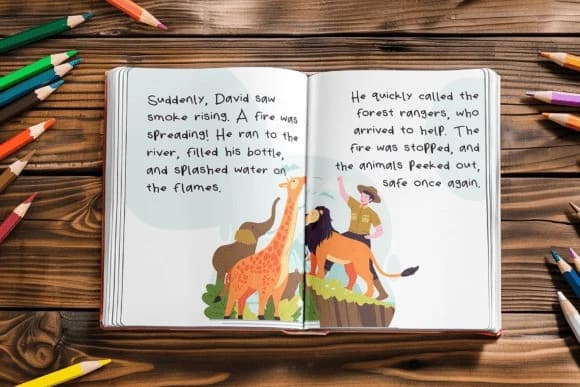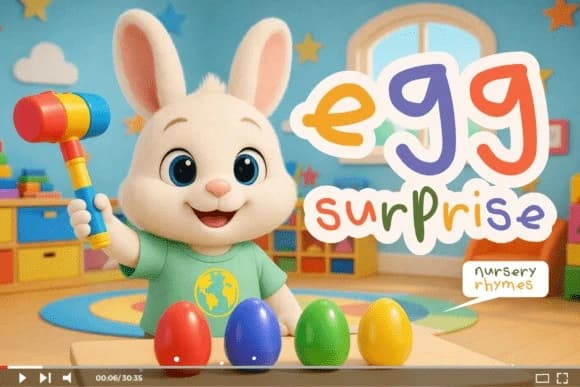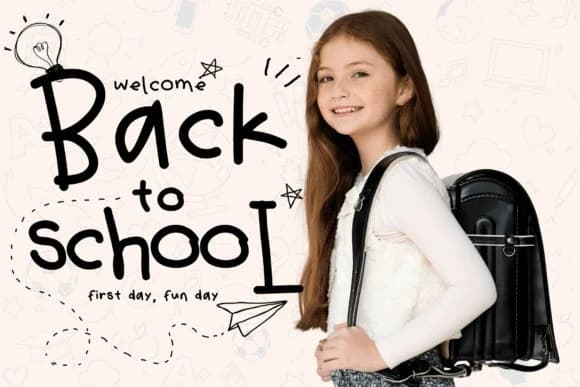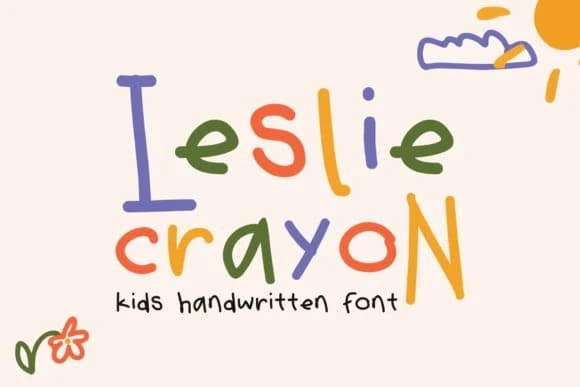
Leslie Crayon Font, a nostalgic display typeface that captures a “youthful-and-yearning” soul. This font features charming, hand-drawn letterforms characterized by the rhythmic, waxy texture of a real crayon stroke and soft